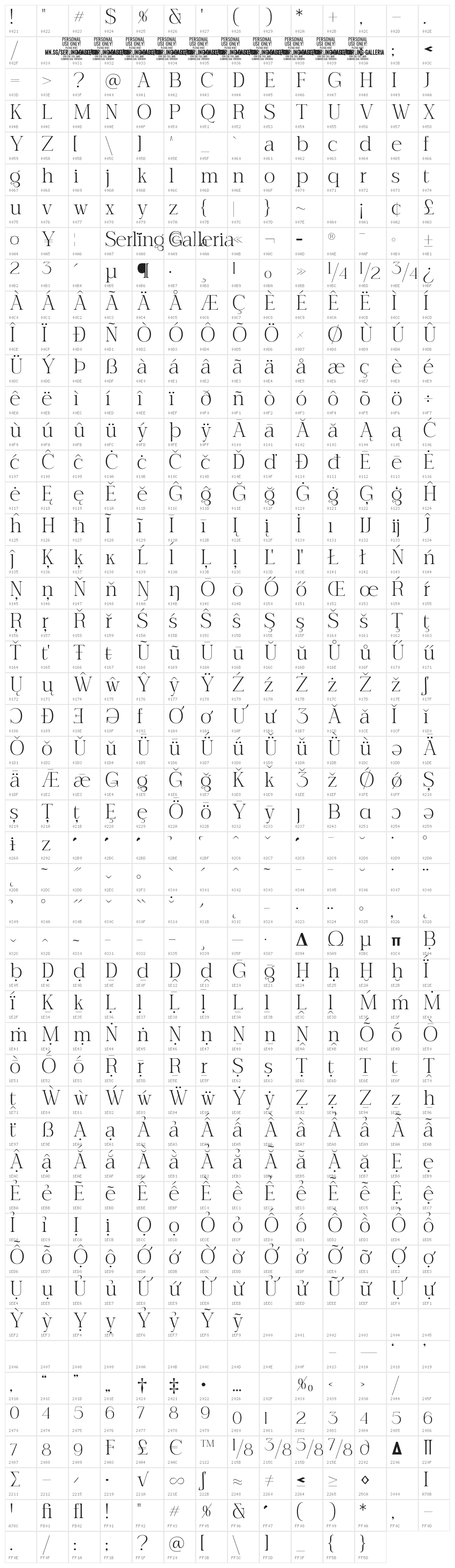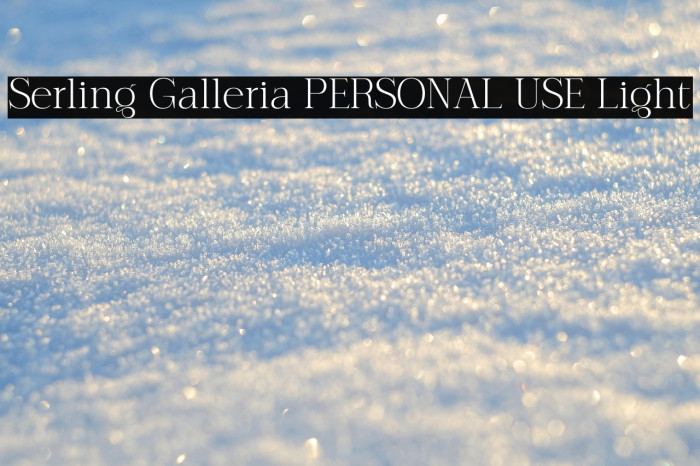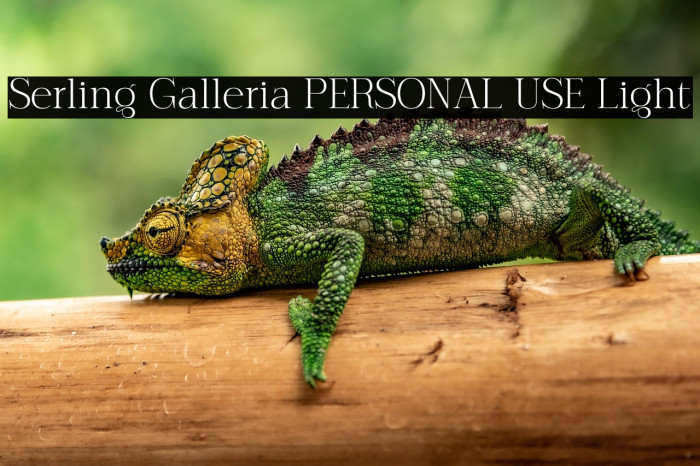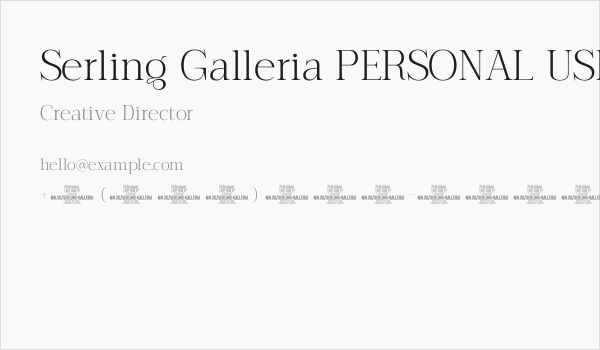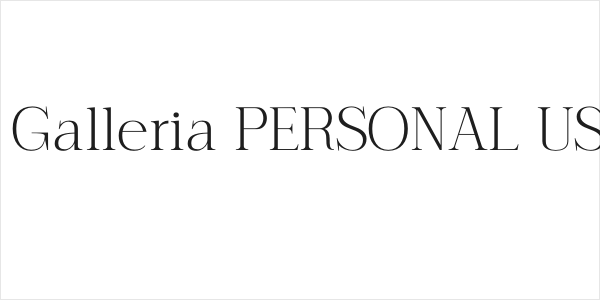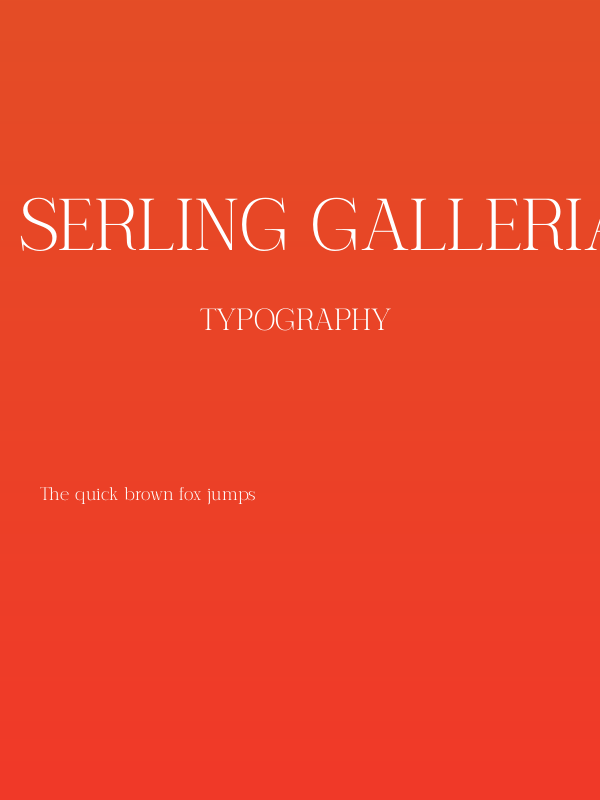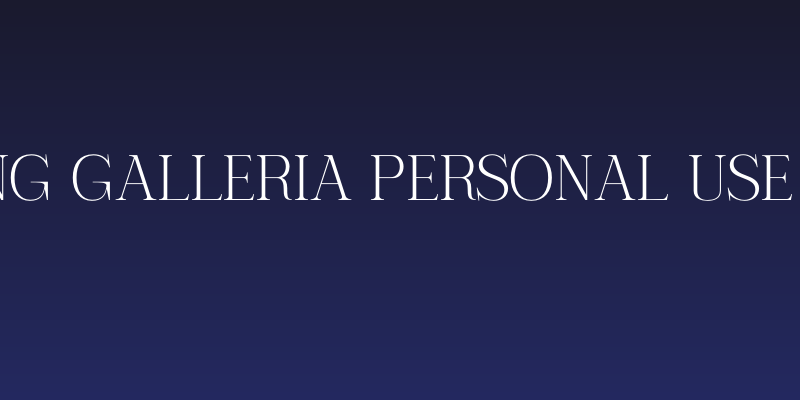
Serling Galleria PERSONAL USE Light Font
Serling Galleria PERSONAL USE Light Description
This font features a refined and elegant serif design, characterized by its thin, elongated strokes and subtle curves. The uppercase letters exhibit a classic and sophisticated appearance, with a slight contrast in stroke thickness that adds to its graceful look. The lowercase letters maintain a consistent style, with smooth transitions and a harmonious balance between the characters. The numerals are clear and legible, matching the overall aesthetic of the font. Special characters are thoughtfully designed, ensuring versatility and functionality in various applications. This font exudes a timeless charm, making it suitable for projects that require a touch of elegance and class.
| Use Case | Headlines, Logos, Editorial design |
| Proposed Projects | Ideal for wedding invitations, luxury branding, editorial design, and high-end product packaging. |